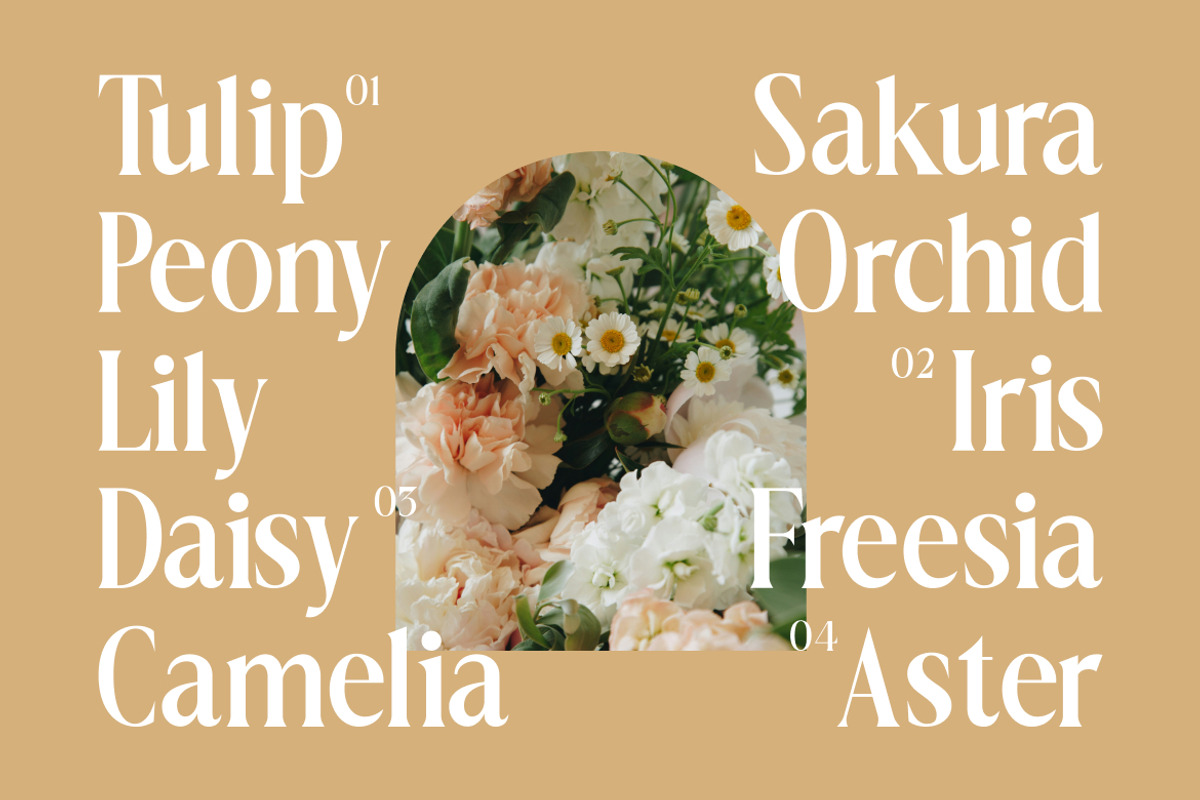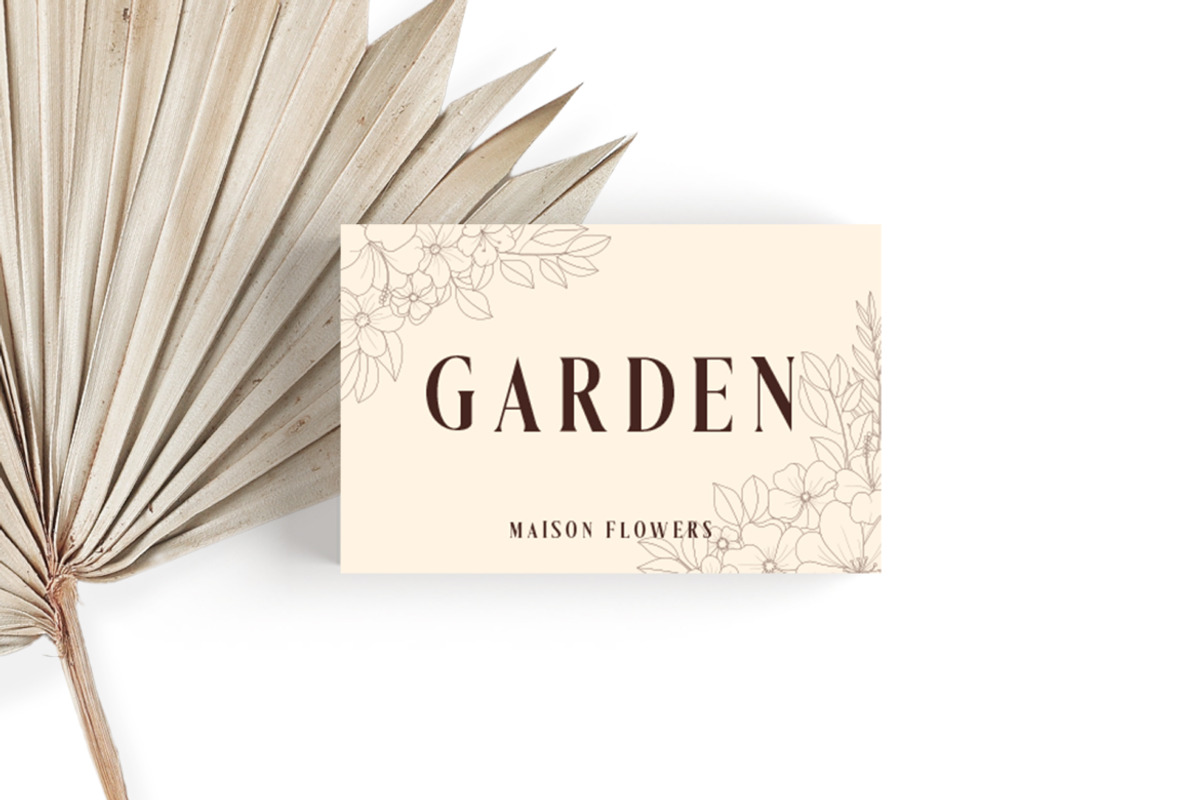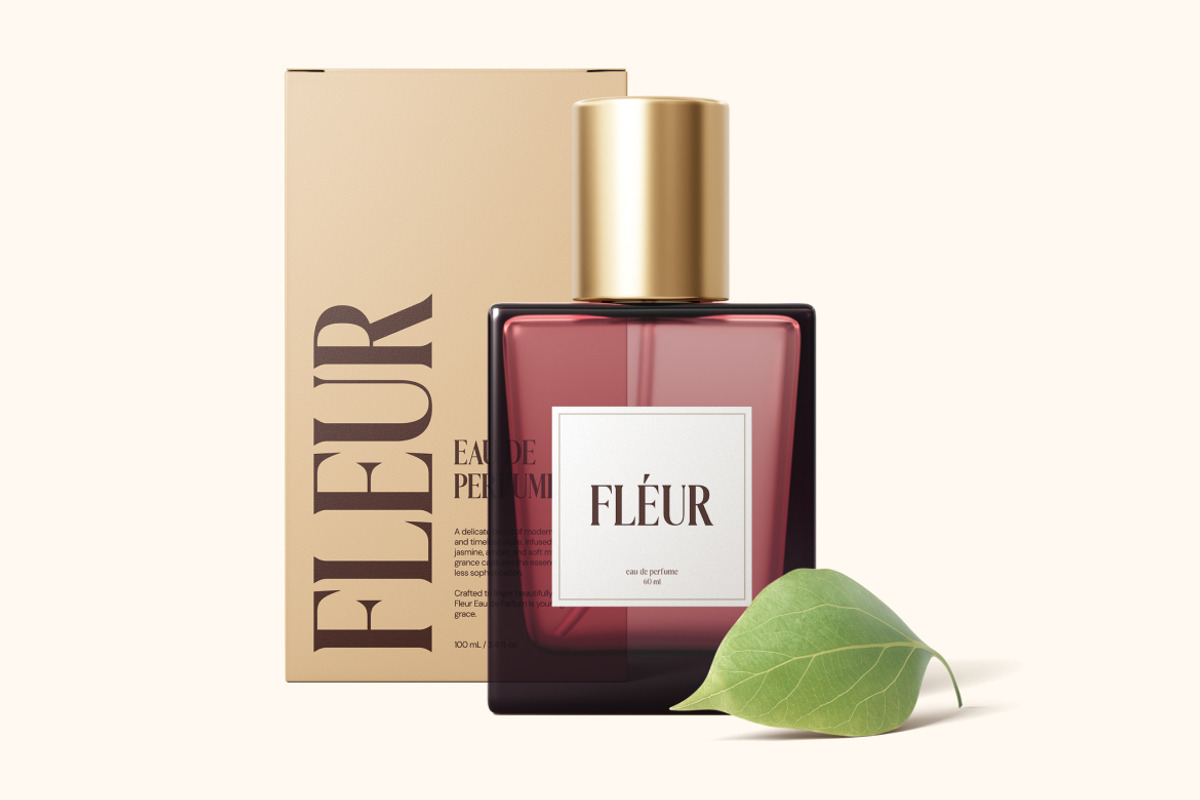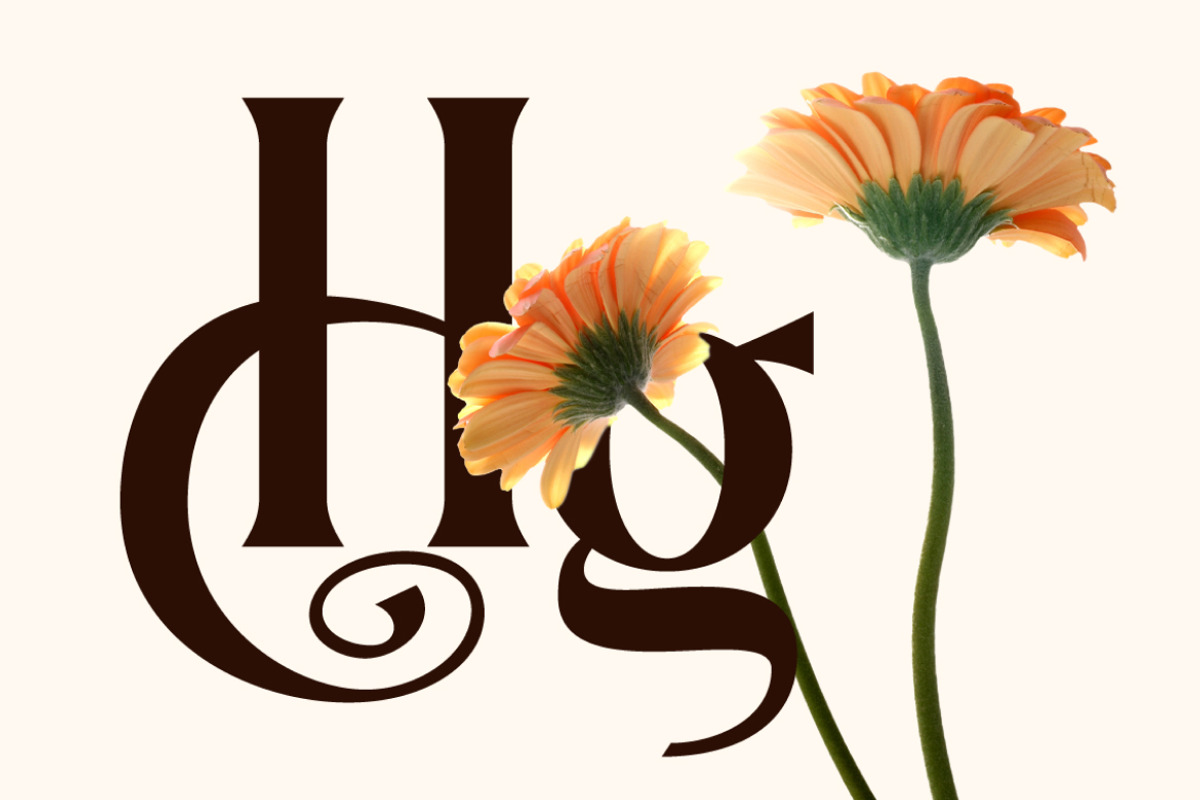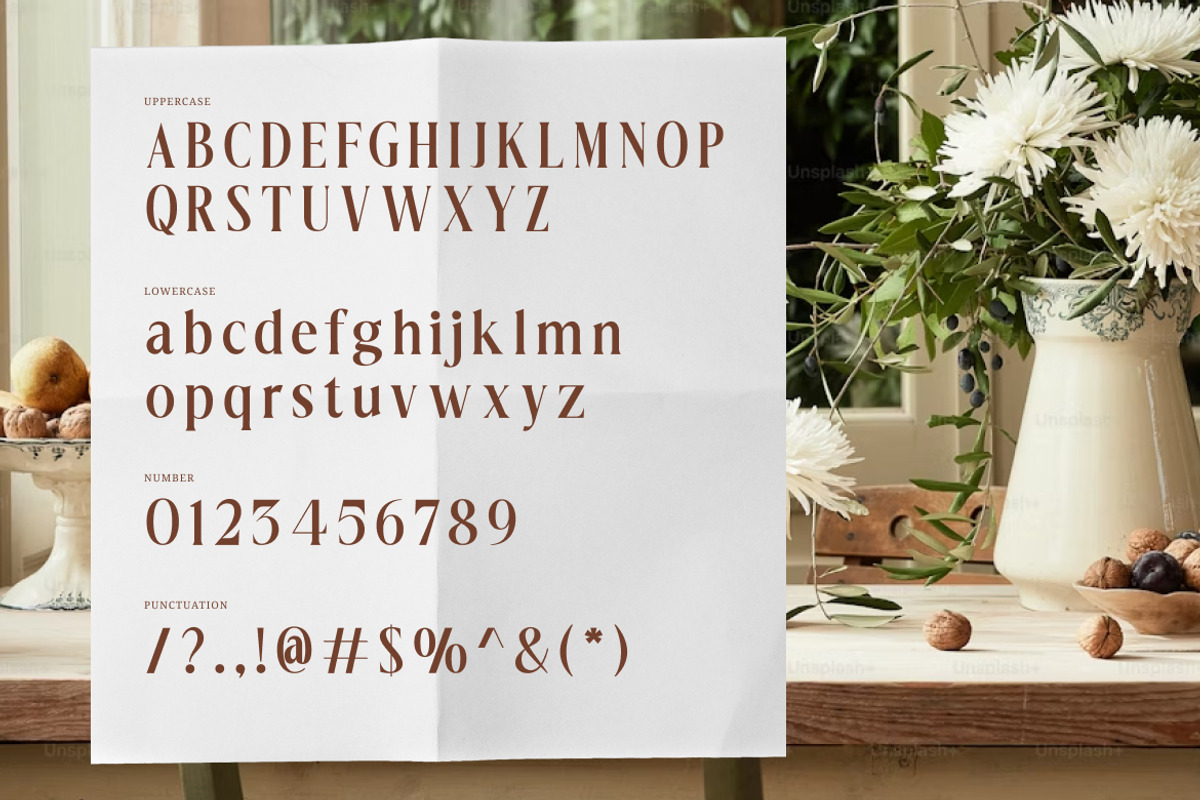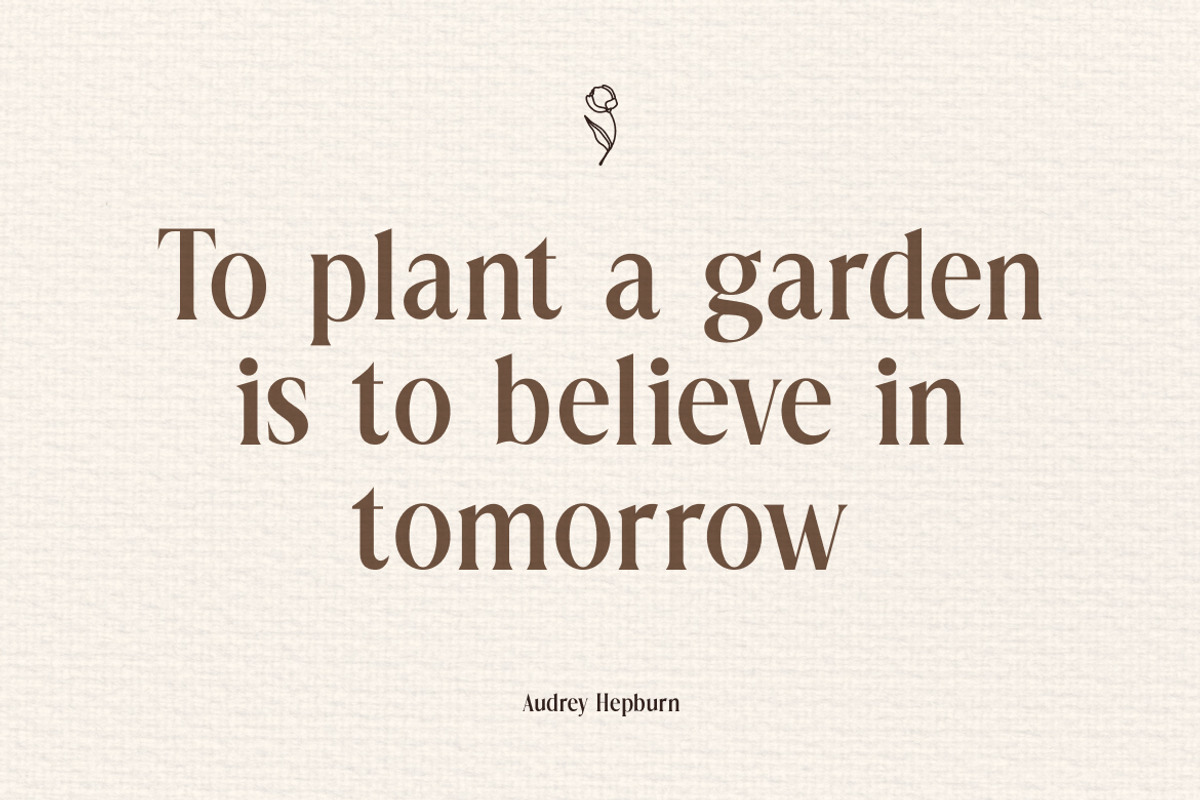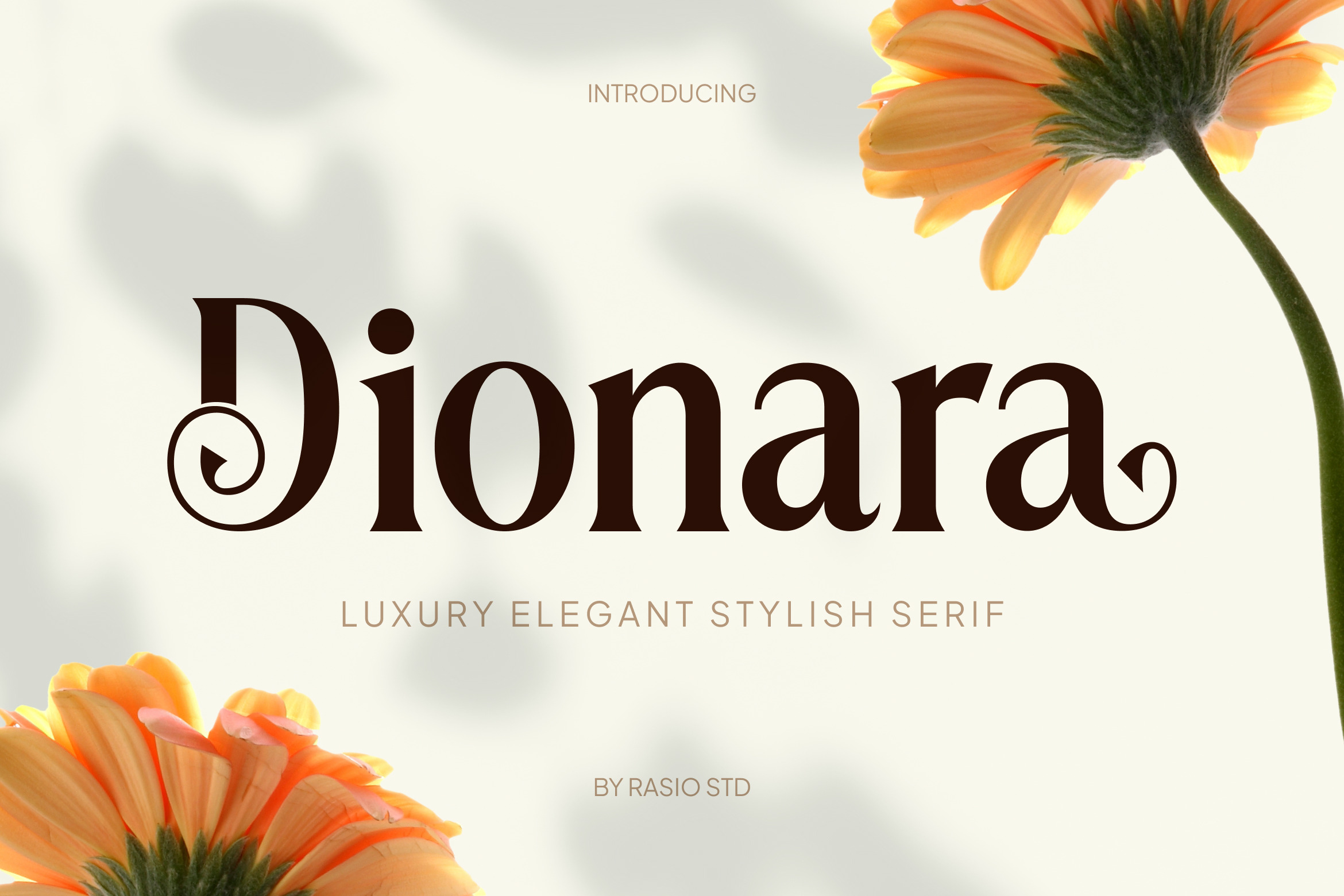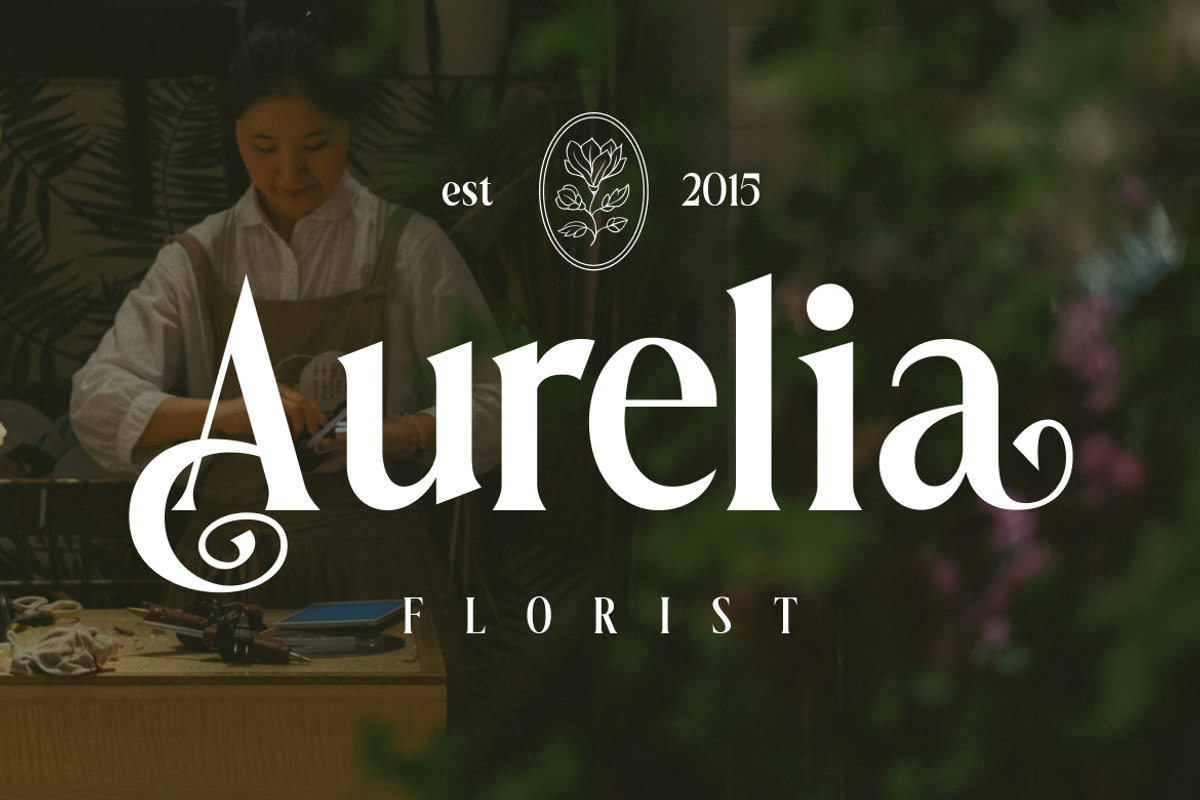
Dionara Luxury Elegant Serif Font
Dionara is a luxury elegant serif typeface crafted with refined proportions, graceful curves, and distinctive decorative terminals. It features high-contrast strokes, sculpted serifs, and stylish alternates that create a sophisticated and timeless impression. The package includes uppercase, lowercase, numerals, and punctuation, carefully spaced for premium editorial and branding compositions.
Dionara is highly relevant for luxury branding, fashion labels, beauty products, wedding stationery, editorial magazines, and premium packaging design. Its refined contrast and decorative serif details make it ideal for logos, headlines, social media campaigns, boutique branding, and high-end marketing materials where elegance and sophistication are essential.
- High-contrast serif structure with refined thick and thin transitions
- Graceful curved terminals and sculpted serifs for a luxurious impression
- Elegant decorative swashes and distinctive letter details for character
- Balanced proportions with a classic editorial influence
- Carefully spaced letterforms for sophisticated display compositions
- Luxury brand identity systems for fashion, beauty, and lifestyle labels
- Editorial magazines, lookbooks, and high-end book covers
- Wedding invitations, event stationery, and refined print materials
- Premium product packaging and boutique branding
- Social media visuals and marketing layouts with an elegant, sophisticated tone
Dionara delivers a bold yet graceful luxury serif statement